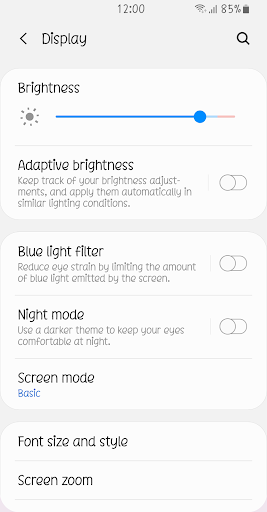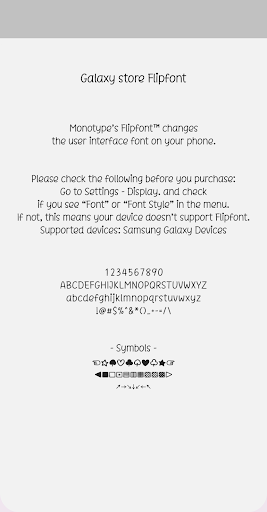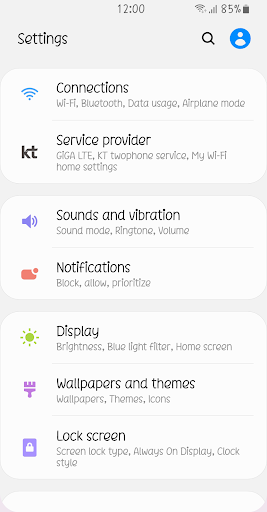
Nm KindPeople
Nm KindPeople is a lovely and cute font and has good readability. Customize your phone with this. Please try this font and leave your feedback.